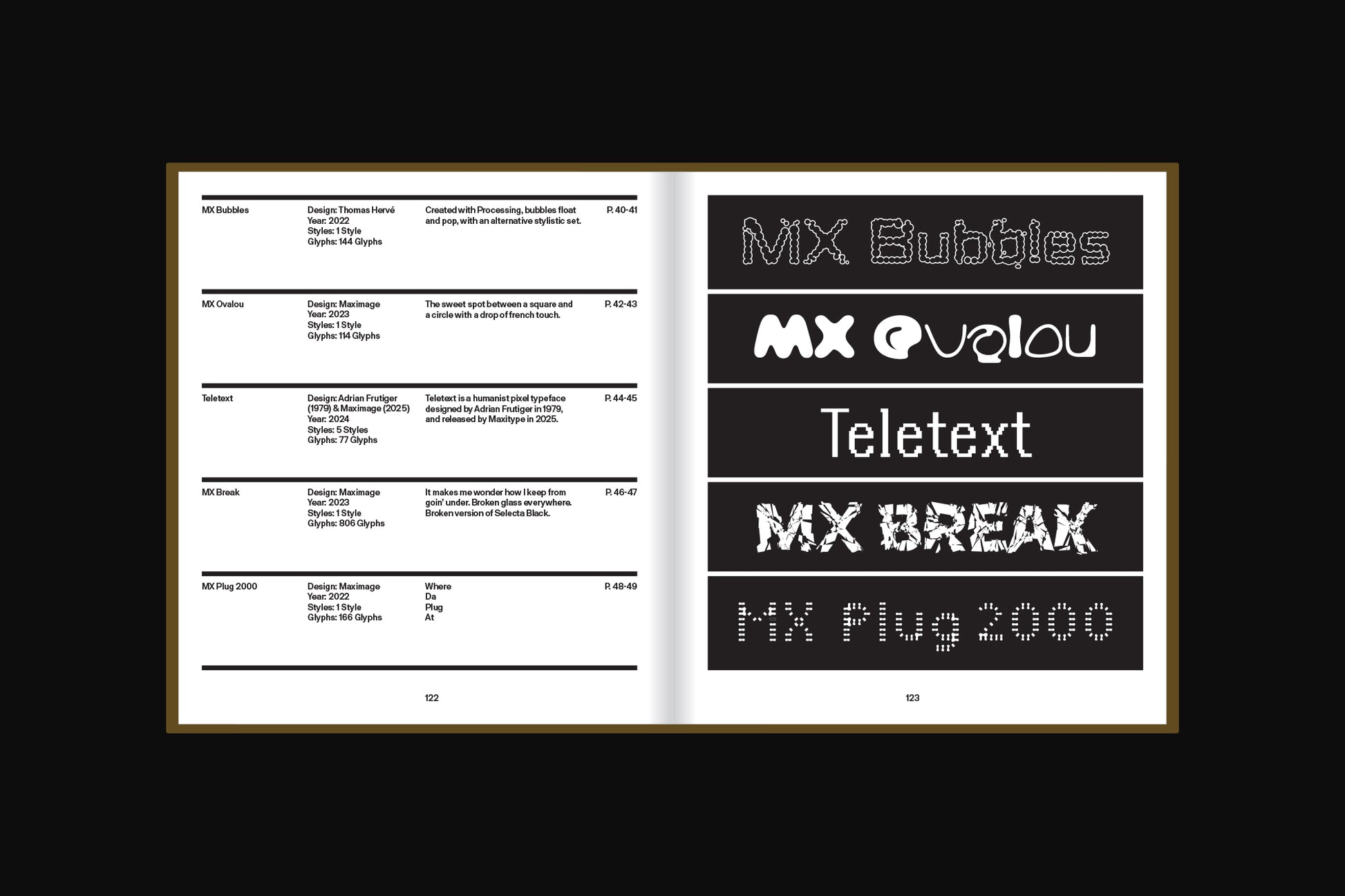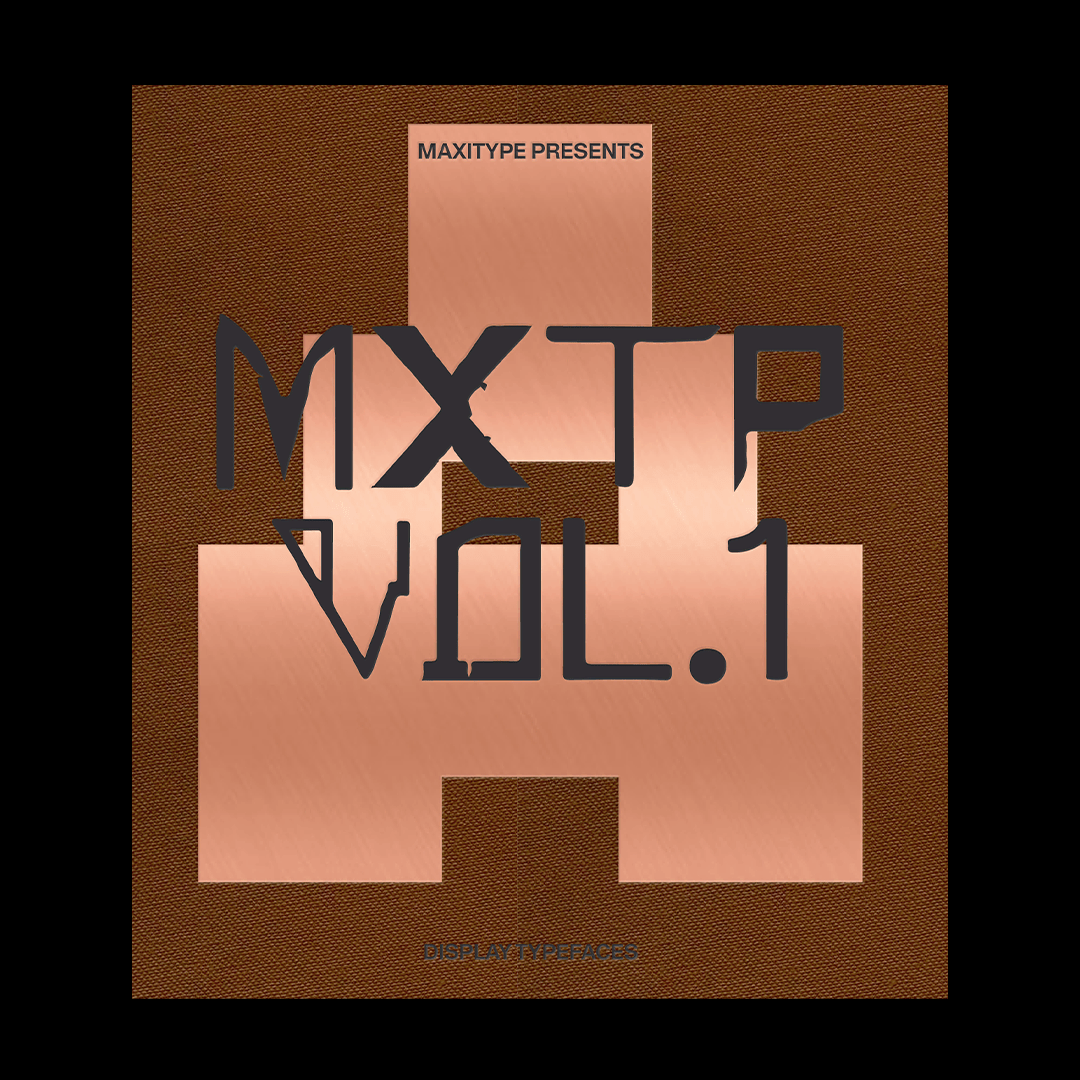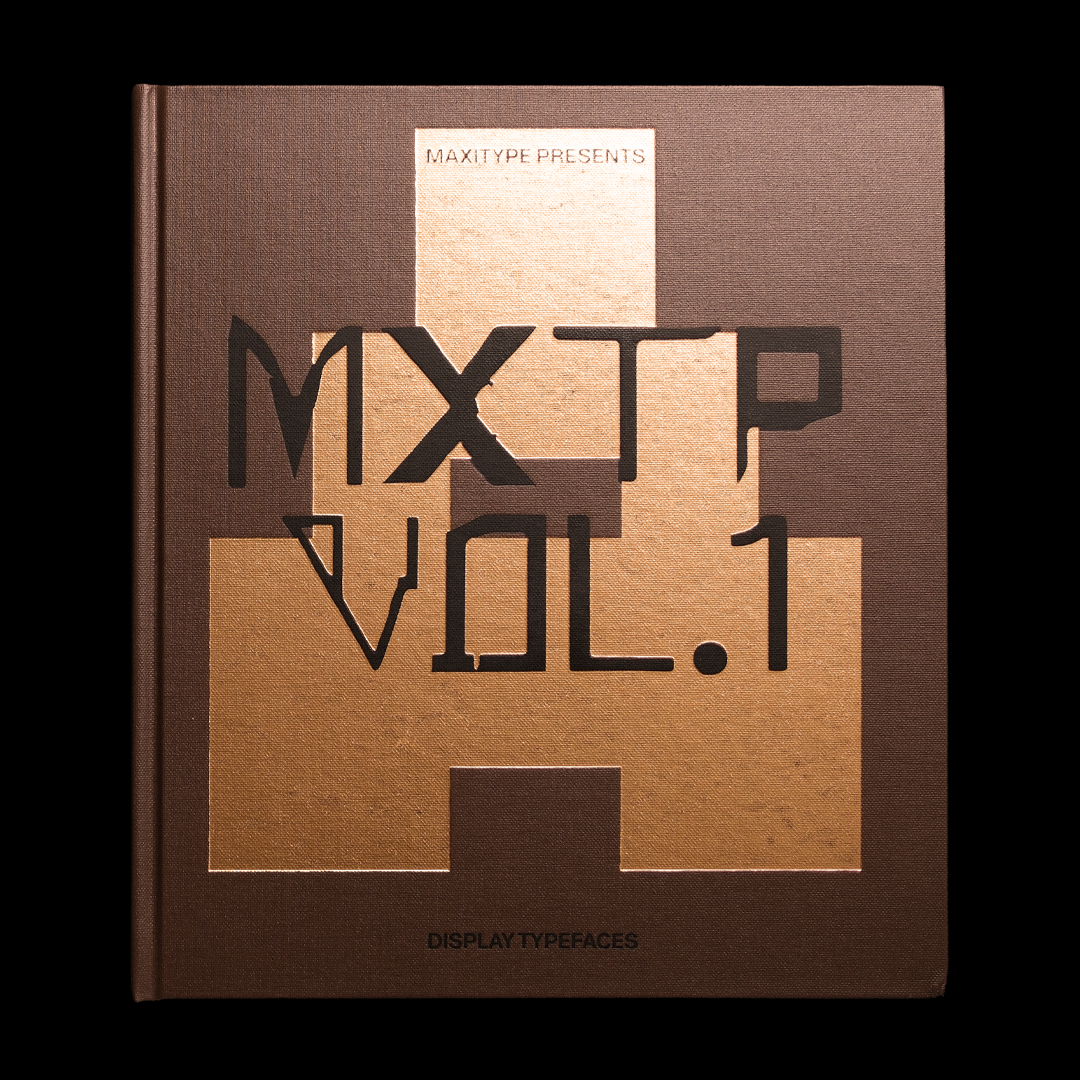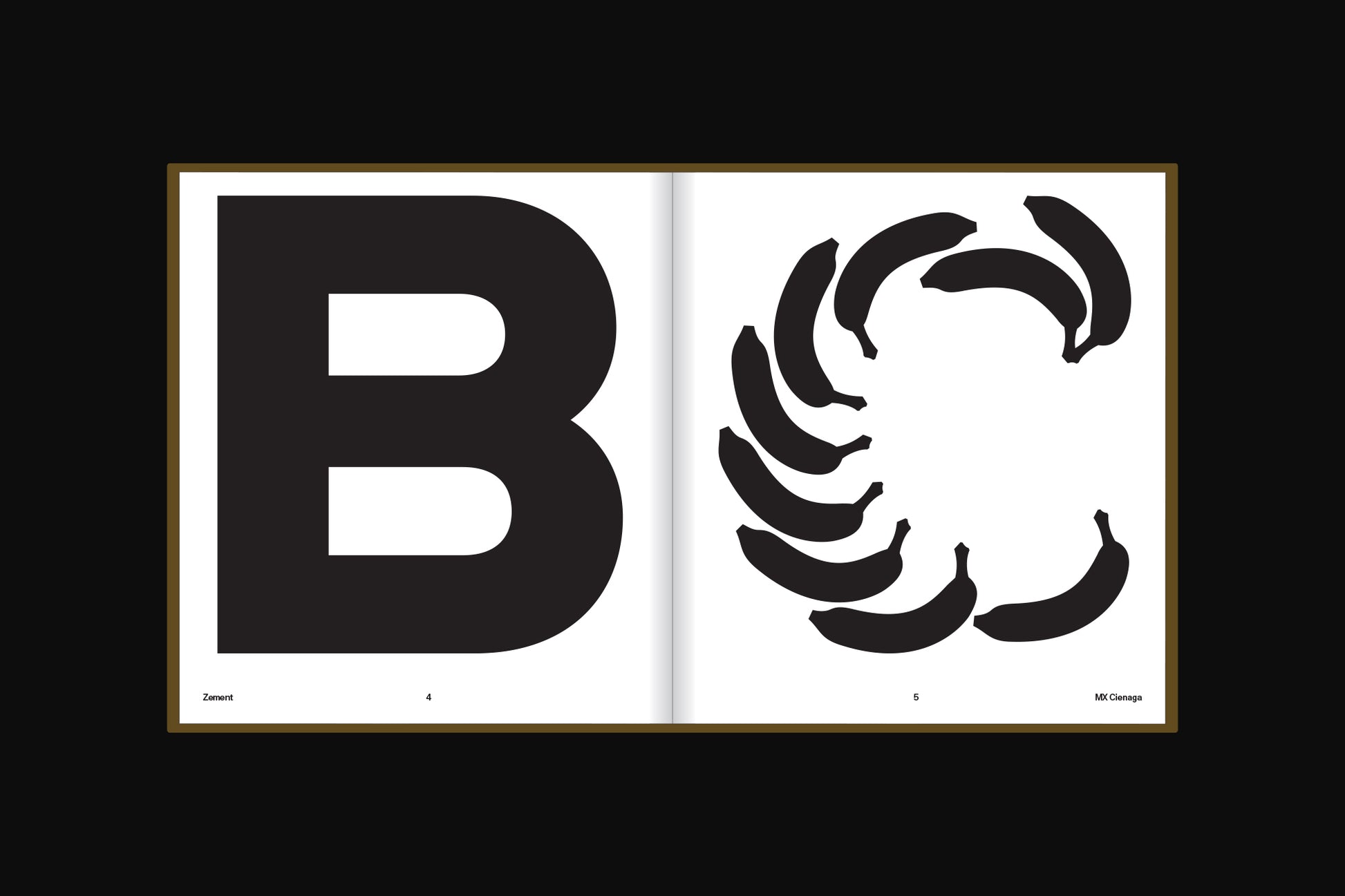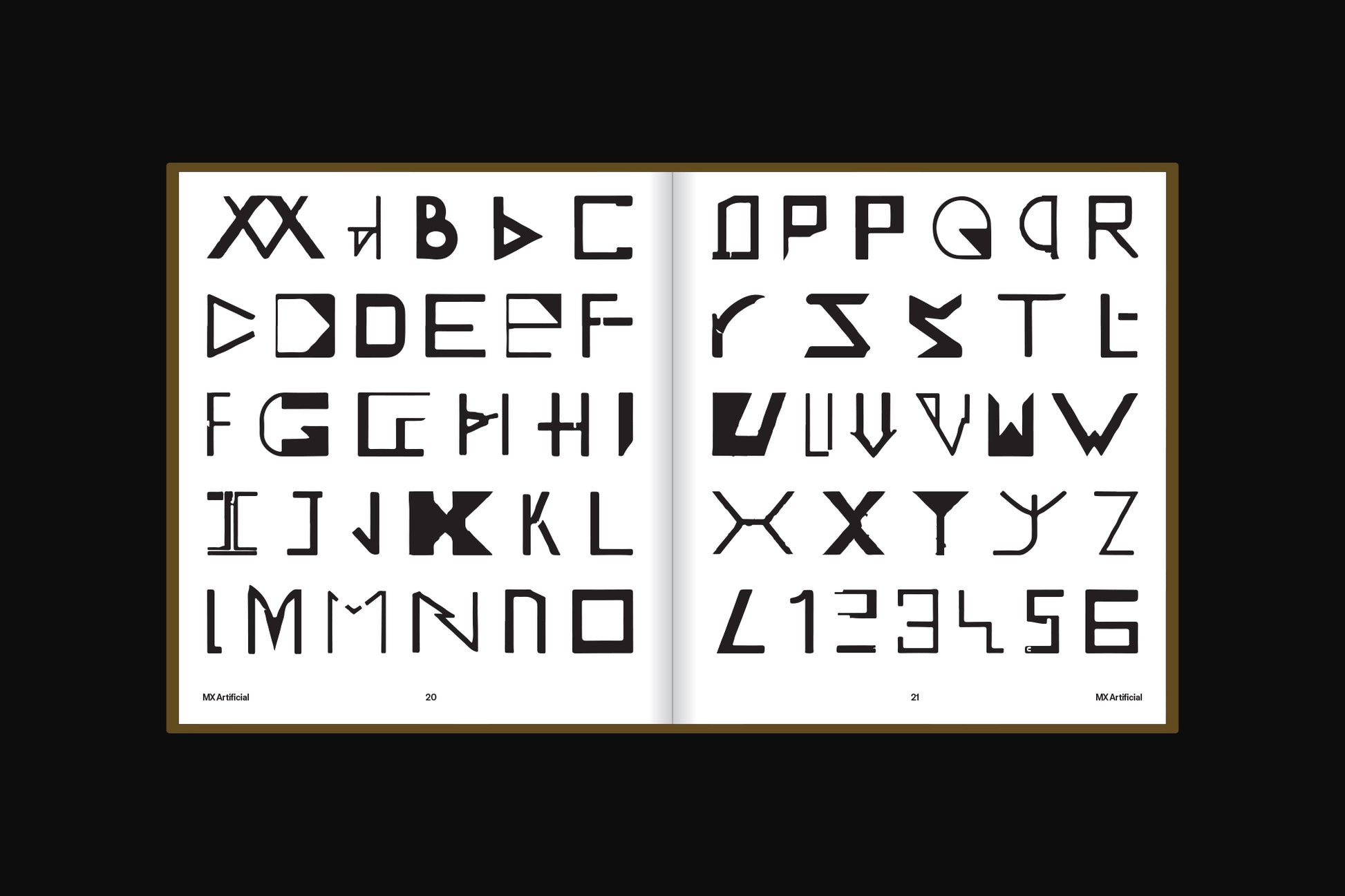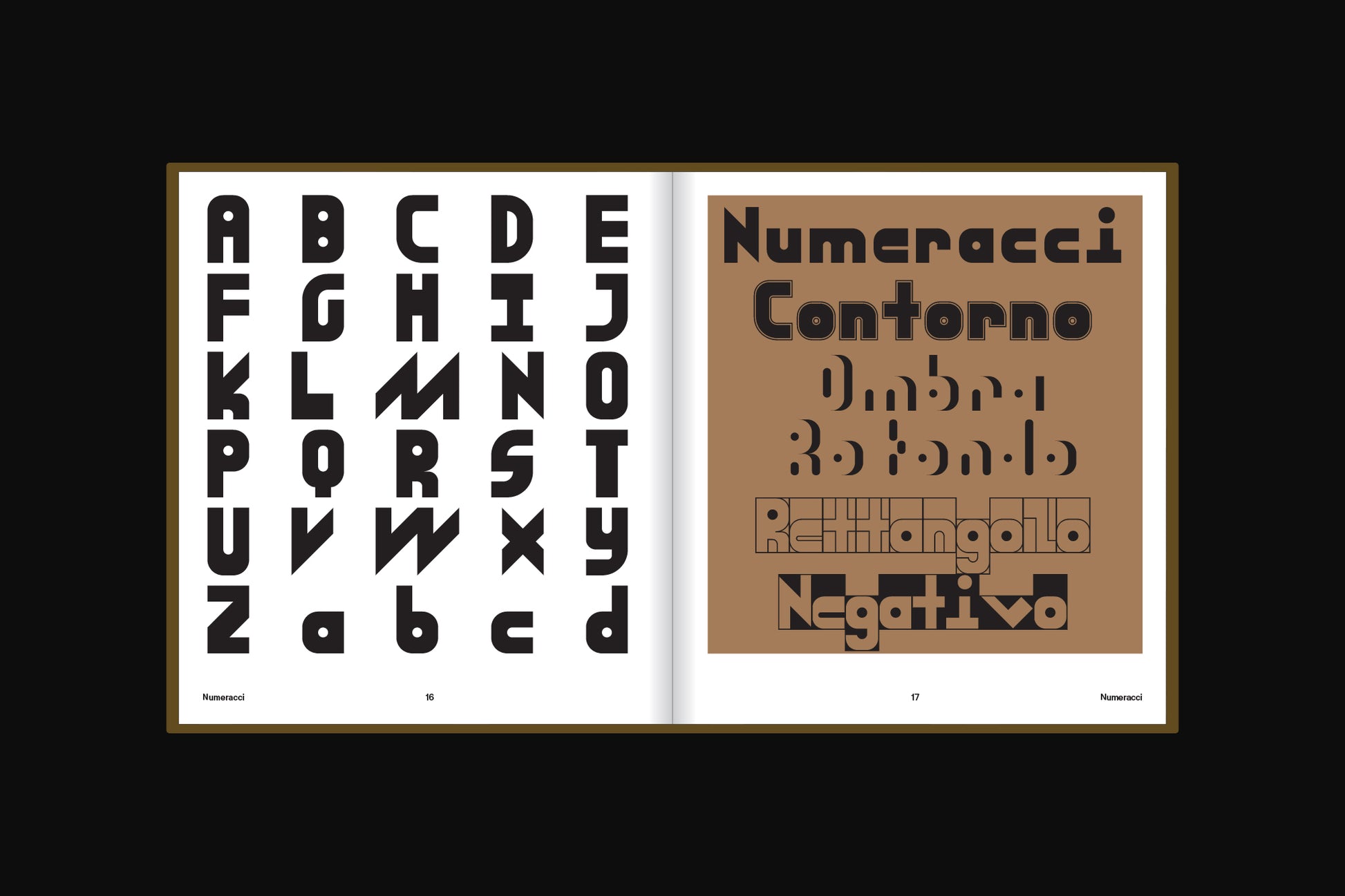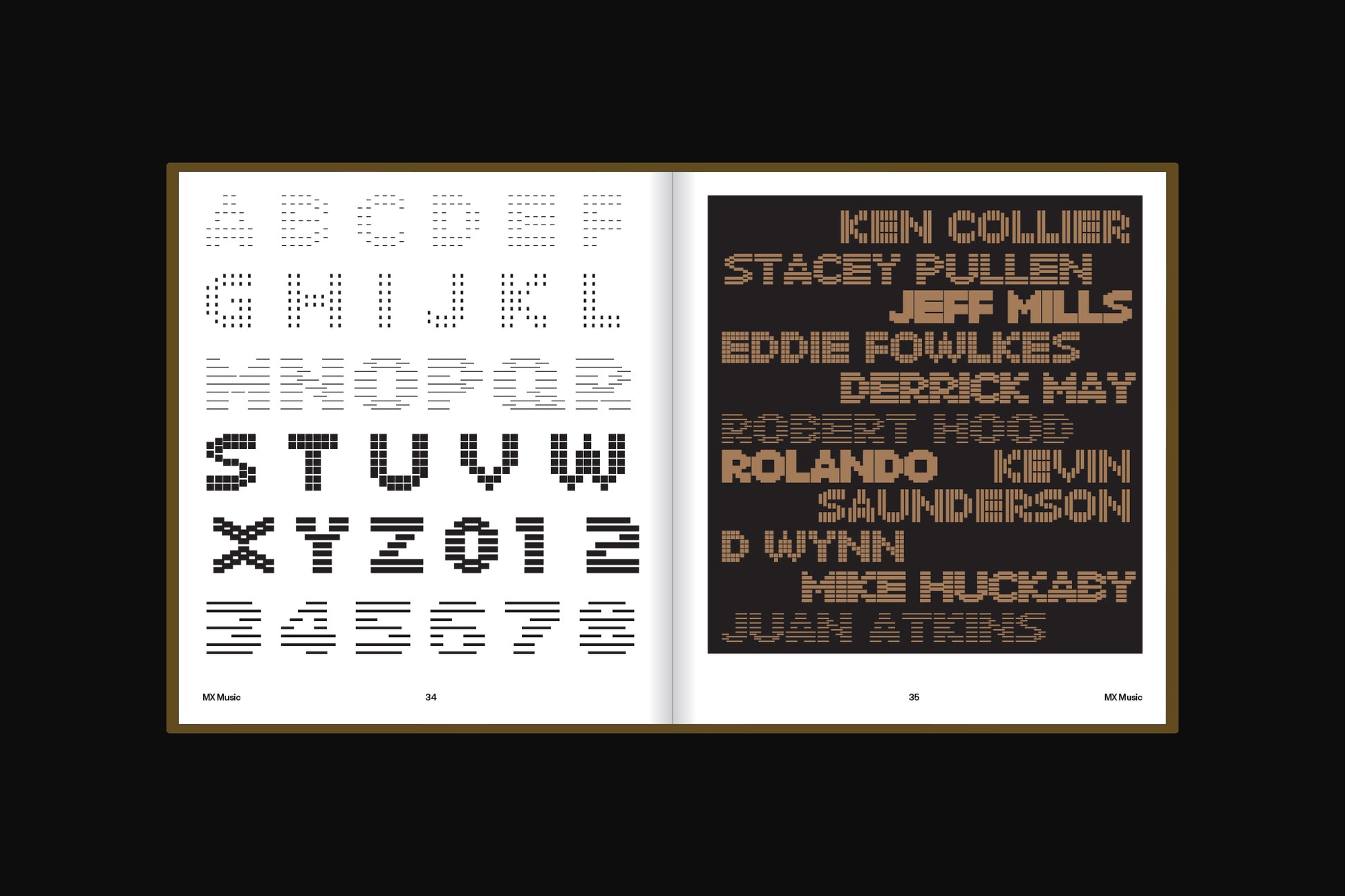
MXTP Vol. 1 (Display Typefaces)
Published by Maxitype, 2025
Designed by Maximage
Maxitype presents MXTP Vol. 1, a compilation of blocky, funky, artificial, experimental, geometric, brainy, comic, distorted, remixed, organic, bubbly, pixelated, obsolete, brutal, reflective, regular, medium, sensitive, dusty, arrogant, sticky, unbalanced, trippy and bumpy display typefaces, designed mostly during the hot summer type residency programmes held by Maxitype and friends in Cucuron, Luberon, France.